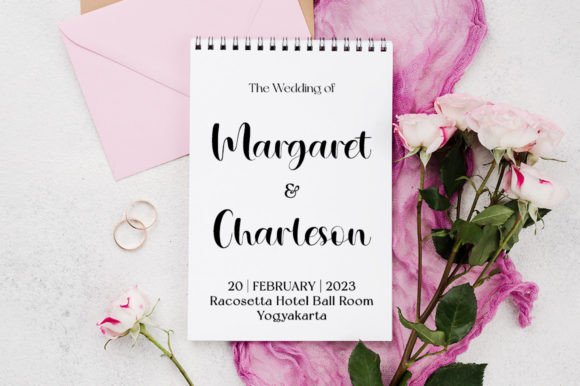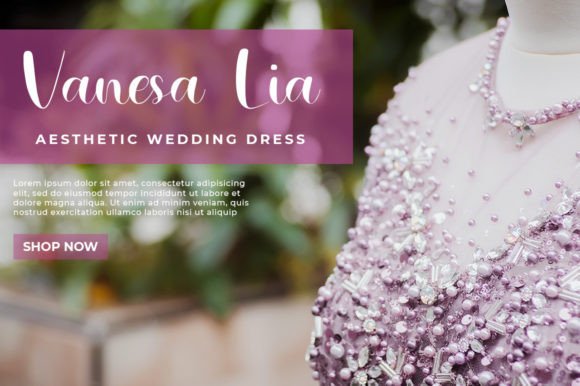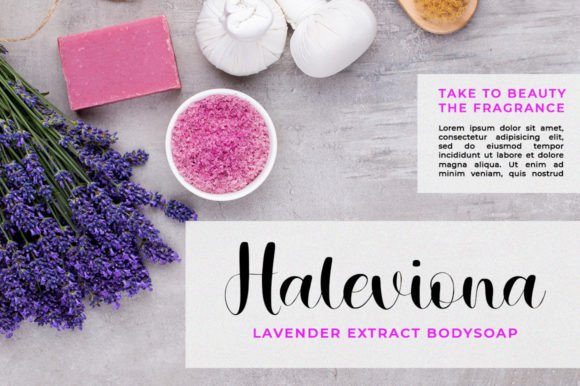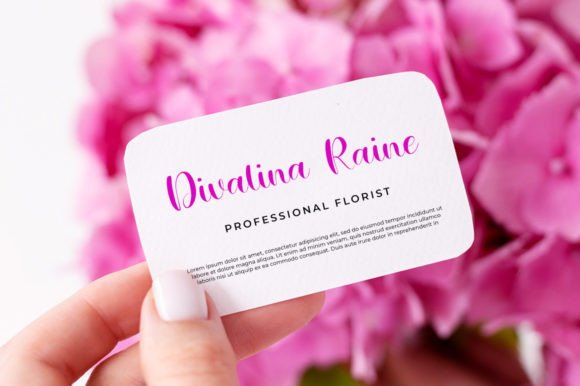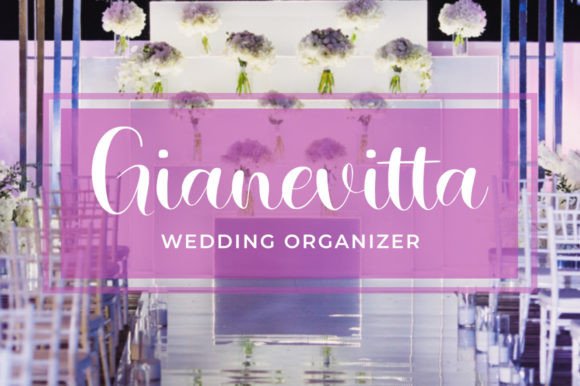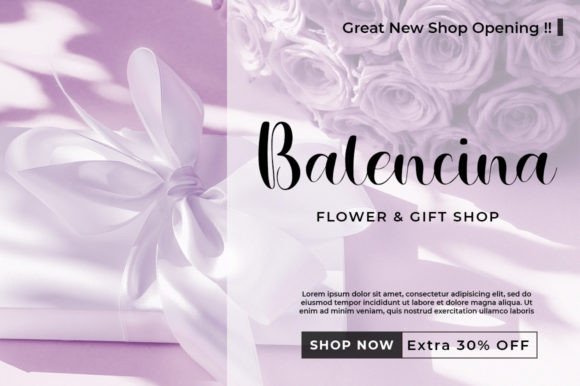
Introduction to Manoria Font
As a designer, there’s nothing quite like the thrill of finding the perfect font to elevate a creative project. For me, it was a recent wedding invitation design that sparked the search for the perfect script font – and that’s when I stumbled upon Manoria Font.
Manoria Font feels equally charming and elegant, making it a standout choice for designers seeking a handwritten touch. Its versatility shines through on wedding invitations, thank you cards, quotes, greeting cards, logos, business cards, and more. With its high-quality design, it’s no wonder why many designers turn to this font as a valuable resource for their creative projects.
Whether you’re working on a design project and need a free download with a transparent background or simply looking for a font that exudes sophistication, Manoria Font is a top choice. Its unique charm and elegance make it an essential design resource for any designer looking to take their work to the next level.
Key Features of Manoria Font
- High-quality design resource with a unique, elegant style, perfect for creative projects.
- Perfect for use in logos, headings, and titles, adding a touch of sophistication to any design project.
- Supports various languages, making it a versatile design resource for global creative projects.
Honest Review: Manoria Font
I recently had the chance to try out the Manoria Font, and I must say it’s been a game-changer for my creative projects. This design resource is a high-quality addition to any digital designer’s toolkit.
- ✨ High-quality vectors for a crisp, clean look
- ✨ Easy to customize for different design needs
- ✨ Includes a transparent background option for seamless integration
- ⚠️ Limited character set, which may not be suitable for extensive text-based projects
- ⚠️ Not ideal for print design, as the font may not render well in larger sizes
Overall, I’m impressed with the Manoria Font. Its versatility and high-quality design make it an excellent choice for digital designers. While it may have some limitations, it’s still a valuable addition to any design resource library.
Tips for Getting the Most Out of Manoria Font
To get the most out of the Manoria Font, experiment with different font sizes, colors, and styles to create unique and eye-catching designs.
The Manoria Font is perfect for creating designs for social media, presentations, documents, and more. Its high-quality design and transparent background make it a versatile tool for any creative project.
Alternatives to Manoria Font
The Great Vibes Font is a beautiful, elegant script font that is perfect for creative projects. It features a transparent background and is ideal for designers looking for a high-quality font to enhance their design resource. Great Vibes Font is a great alternative to Manoria Font for designers who want a more classic and sophisticated look.
When to use: Wedding invitations, event invitations, and any other creative project where a elegant and sophisticated look is desired.
Comparison: Great Vibes Font is more elegant and sophisticated than Manoria Font, making it a great choice for designers who want to add a touch of class to their design resource.
The Carolyna Pro Font is a modern and elegant script font that is perfect for designers who want to add a touch of sophistication to their design resource. It features a transparent background and is ideal for creative projects where a high-quality font is needed. Carolyna Pro Font is a great alternative to Manoria Font for designers who want a more modern and sleek look.